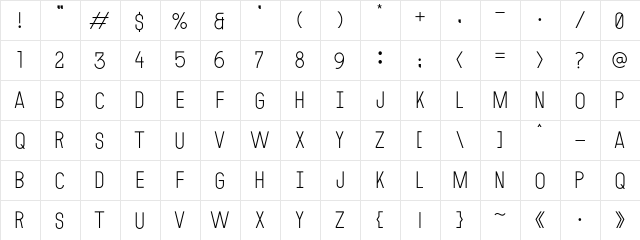
MODULAR 4
Design Context for MODULAR Typeface
MODULAR offers clean, dependable letterforms without strong stylistic allegiance, making it a practical choice for designers who need flexibility.
Pro Tip: Use MODULAR in both headline and body roles to test its range before committing to a single application.